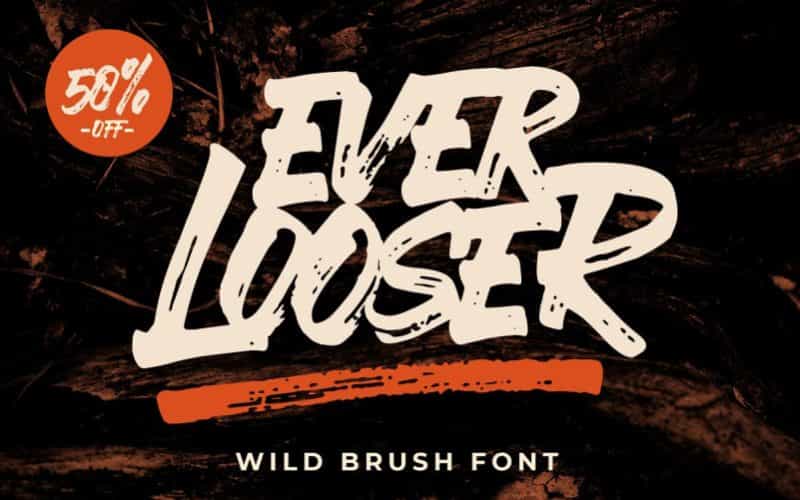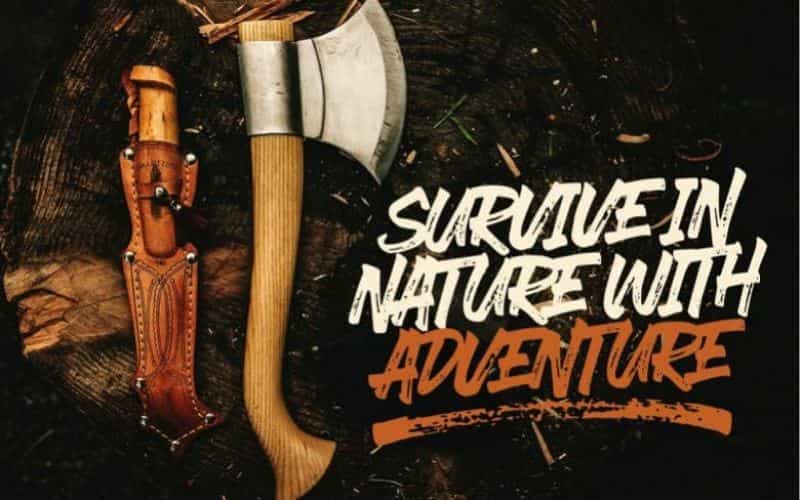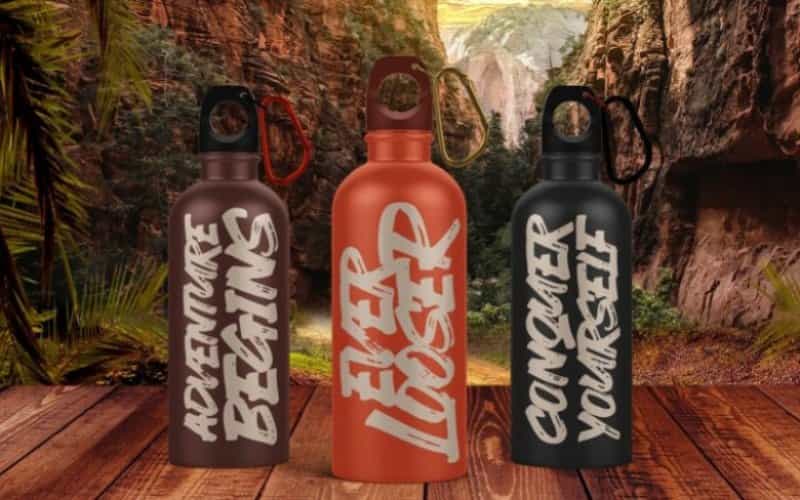
Presenting EVER LOOSER! A Wild Brush Font with the texture that is very different from the others. This font is a result of the perfect combination of every character. You can type by Mix & Match to create a unique combining. This one is the original and can be applied to all your project needs.